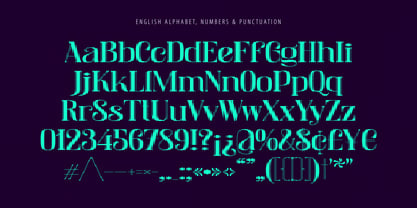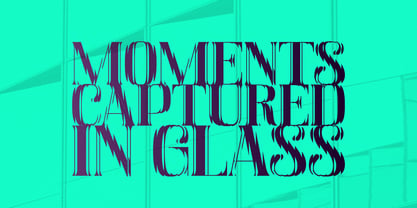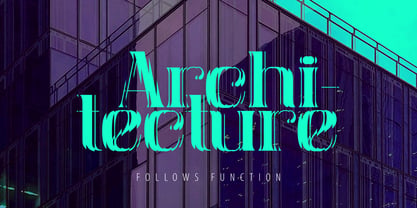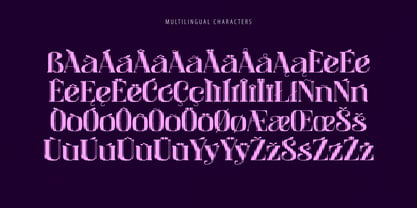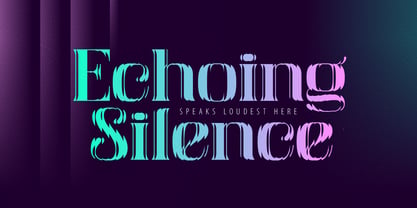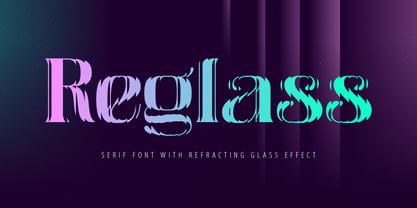
Reglass
par Gleb Guralnyk
La famille de polices Reglass a été conçue par Gleb Guralnyk et publiée par Gleb Guralnyk. Reglass contient 1 styles. En savoir plus sur cette famille
Reglass is a modern serif font with an original refracting glass effect. Embedded vector glitch-like shapes produce an elegant yet expressive mood. It is perfect for advertising posters, high-end label designs, and unique lettering compositions.
Reglass includes 221 characters for wide multilingual support — check the screenshots to view the full character set.
A lot of my fonts inherits vintage graphic styles but nevertheless I don't like to stick to one theme for a long time. That's why I'm trying to create fonts in different styles and from different eras, from old gothic calligraphic to modern handwritten scripts, from medieval antique to minimalist sans-serif typefaces. It's always interesting to design something new, and expand my skills in novel font design directions.